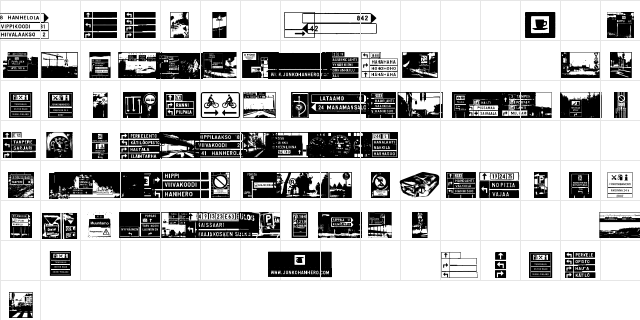
Tienp??ll? Regular
Design Context for Tienp??ll? Typeface
Tienp??ll? offers clean, dependable letterforms without strong stylistic allegiance, making it a practical choice for designers who need flexibility.